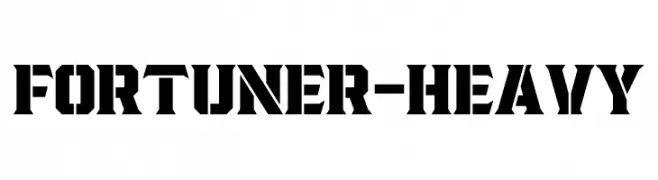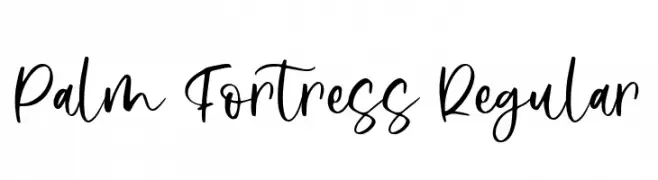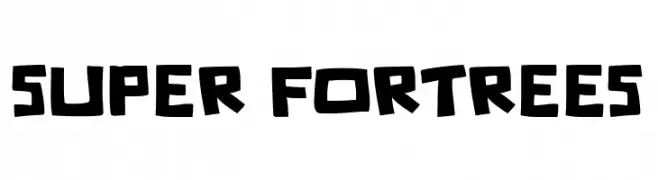
A bold, italic script font with a dynamic and hand-drawn style.
A bold and dynamic font with thick strokes and slightly condensed letterforms.
A bold, playful font with a hand-drawn, irregular style.
A textured, hand-drawn style font with a dynamic and playful appearance.
A bold, blocky font with a unique brick pattern, perfect for impactful designs.
A bold, geometric font with strong, angular shapes and a modern industrial feel.
A flowing, cursive font with elegant, sweeping lines and a handwritten appearance.
A lively and elegant script font with a modern handwritten style.
Bold, decorative script font with flowing style.